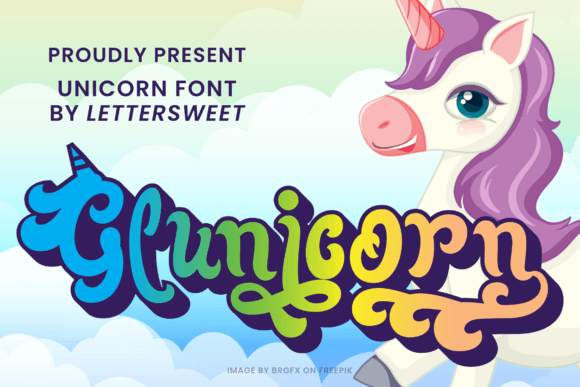
Behold the Enchanting World of Glunicorn: A Whimsical Adventure Awaits!
Welcome to the world of Glunicorn, where enchantment meets elegance, and playfulness dances with authenticity. This magical display font is a masterpiece crafted by Lettersweet, designed to ignite the imagination of your cherished little ones.
As its name suggests, Glunicorn is a font that embodies the very essence of fun and joy. Its charming curves and delightful swashes create an aura of playfulness that will captivate children of all ages. Whether it's a school project, a creative writing assignment, or simply a fun-filled day of storytelling, Glunicorn provides the perfect backdrop for their boundless creativity.
Step into a Realm of Imagination and Delight:
Glunicorn is more than just a font; it's an open invitation to embark on a whimsical adventure. Its meticulously crafted characters, adorned with playful details, transport you to a world where unicorns frolic through enchanted forests, fairies dance among blooming flowers, and laughter echoes through the air. Every letter, every stroke, every curve is an invitation to let your imagination soar.
Unlock the Magic of Creativity:
With Glunicorn at your fingertips, unleash the boundless creativity within your child. This enchanting font transforms ordinary words into extraordinary tales, breathing life into characters and making stories come alive. Watch as their imaginations ignite, as they weave magical spells, conquer treacherous dragons, and discover hidden treasures. Glunicorn is the key that unlocks the gateway to a world where anything is possible.
Effortless Versatility for Limitless Expression:
The versatility of Glunicorn is truly remarkable. Its playful charm seamlessly blends with a touch of elegance, making it suitable for a wide range of applications. From whimsical posters and eye-catching social media graphics to enchanting invitations and personalized greeting cards, Glunicorn effortlessly elevates any project with its captivating presence.
A Treasure Trove of Glyphs and Swashes:
Glunicorn is a treasure trove of typographic delights. With its PUA encoding, you can effortlessly access a vast collection of glyphs and swashes, adding an extra layer of magic to your creative projects. Experiment with different combinations, mix and match characters, and let your imagination run wild. The possibilities are endless, just like the dreams of a child.